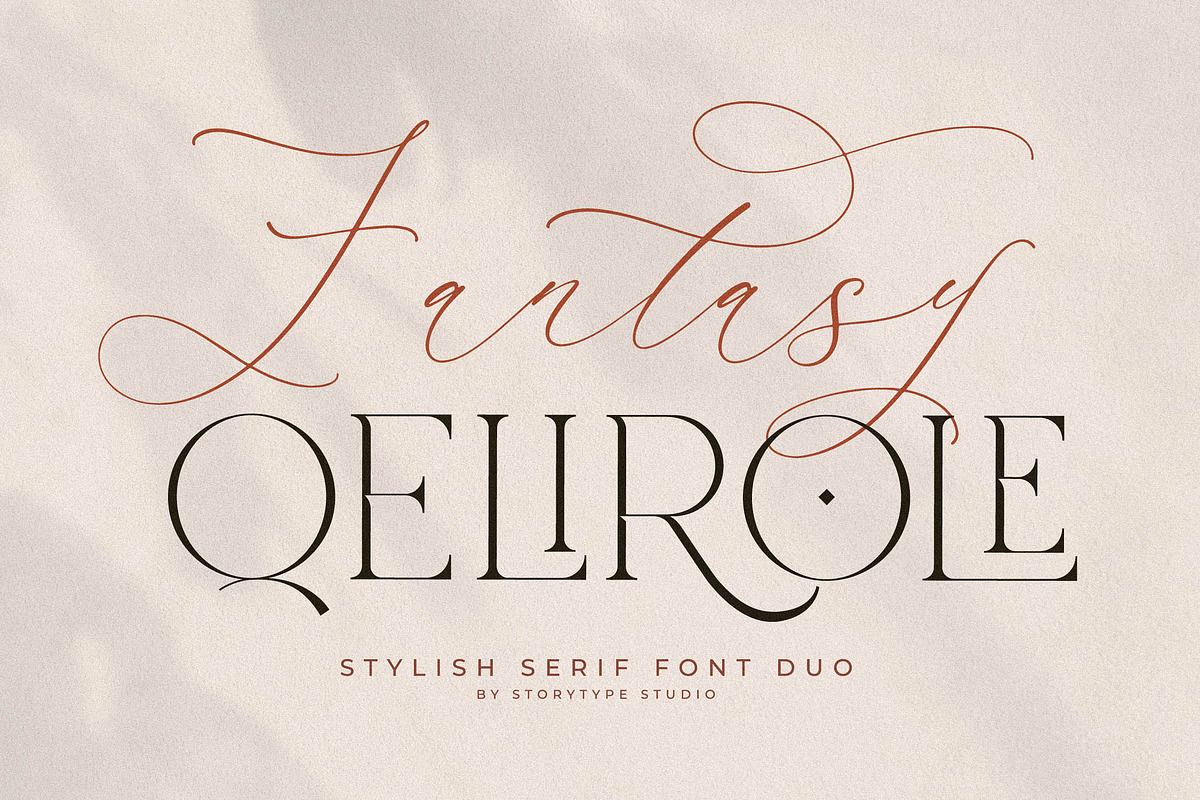
Fantasy Qelirole Stylish Font Duo Free Download
Fantasy Qelirole Stylish Font Duo Free Download is a captivating combination of a bold display font and an elegant script font. This duo is perfect for designs that require a balance of sophistication and creativity, such as logos, branding, invitations, posters, and high-end editorial layouts. The display font offers a strong, striking presence, while the script font adds a touch of fluid elegance.
Whether you're creating a luxury brand, a whimsical design, or an event invitation, the versatility of Fantasy Qelirole ensures your typography stands out with style and personality.